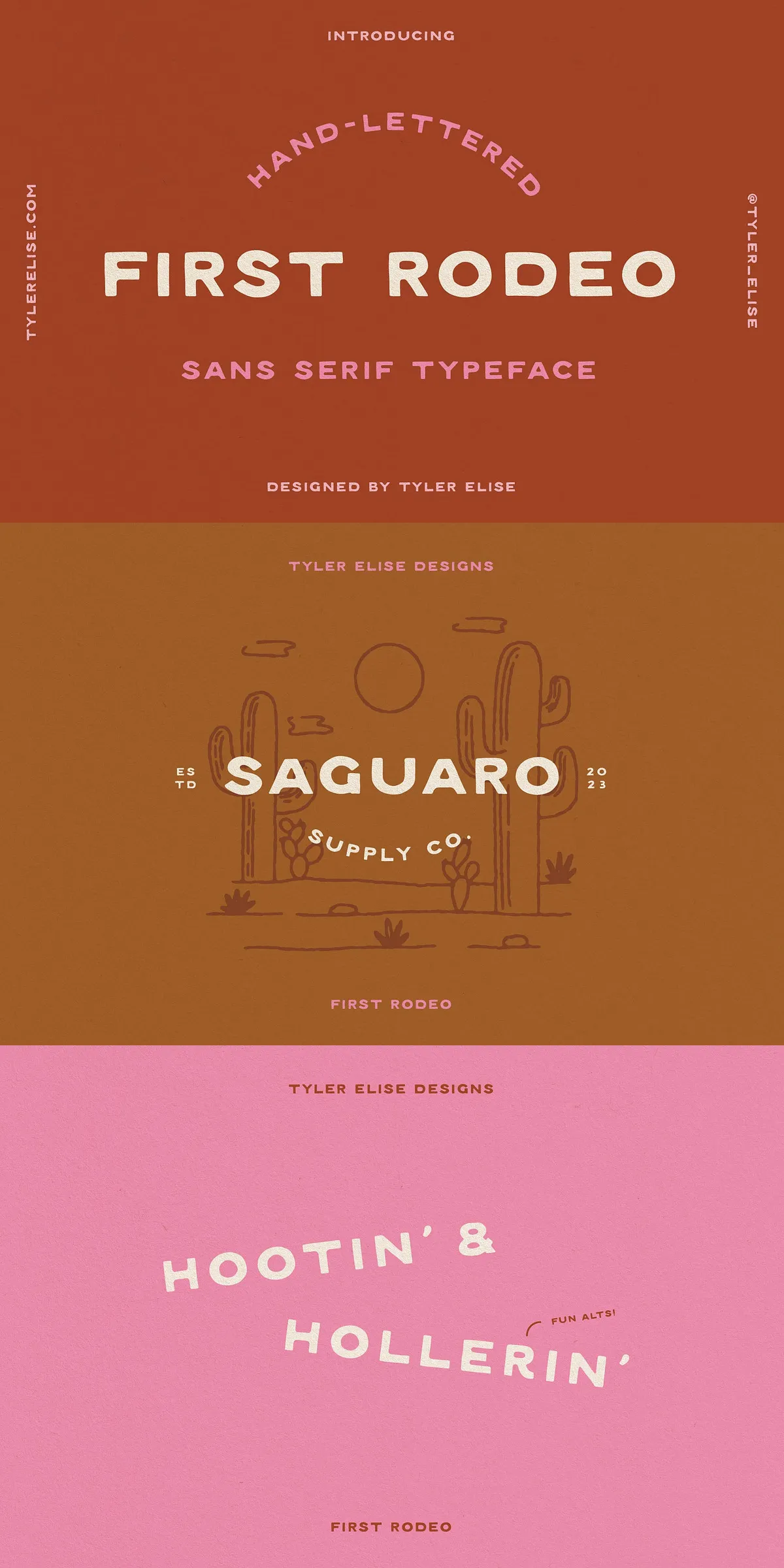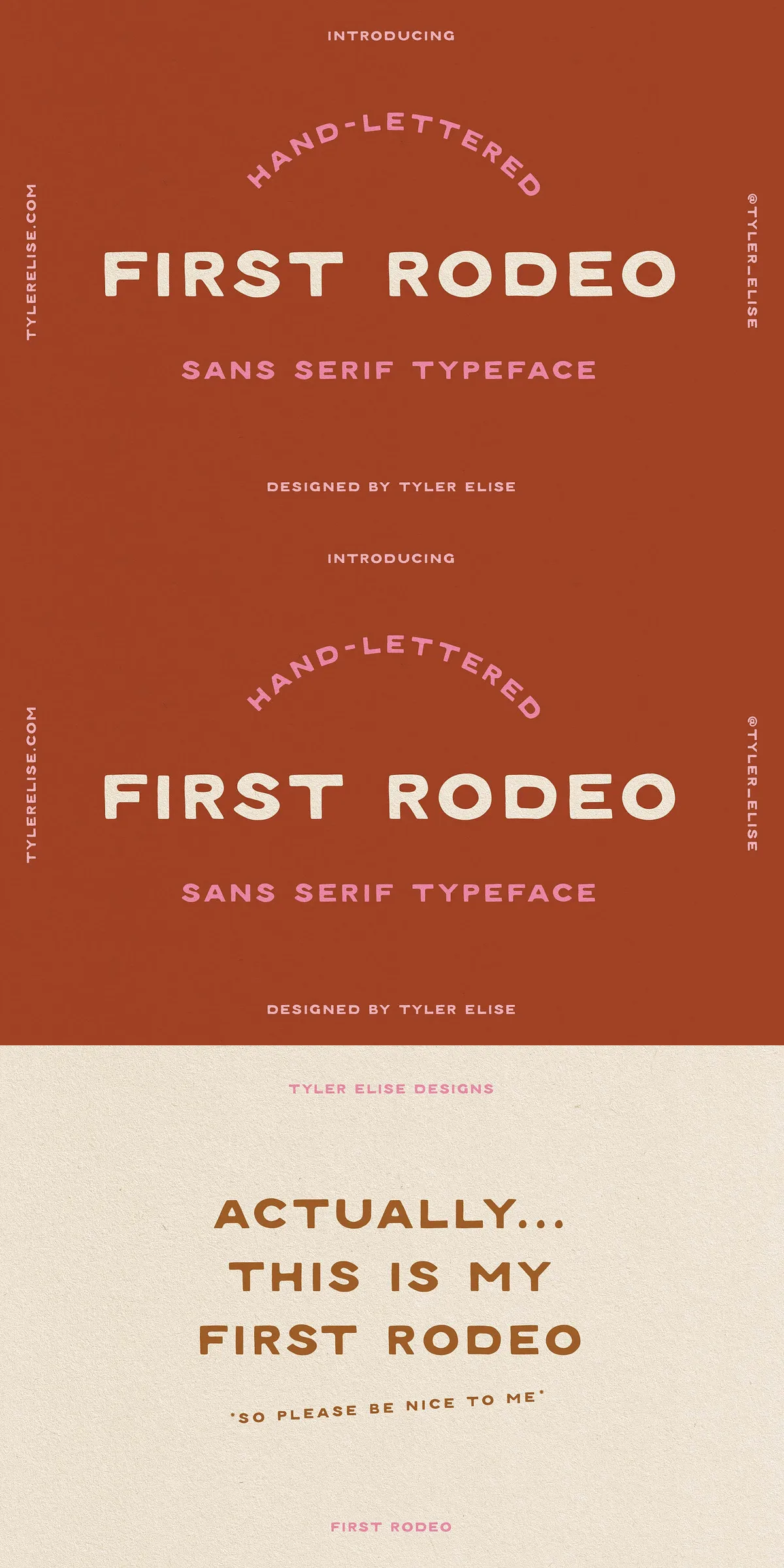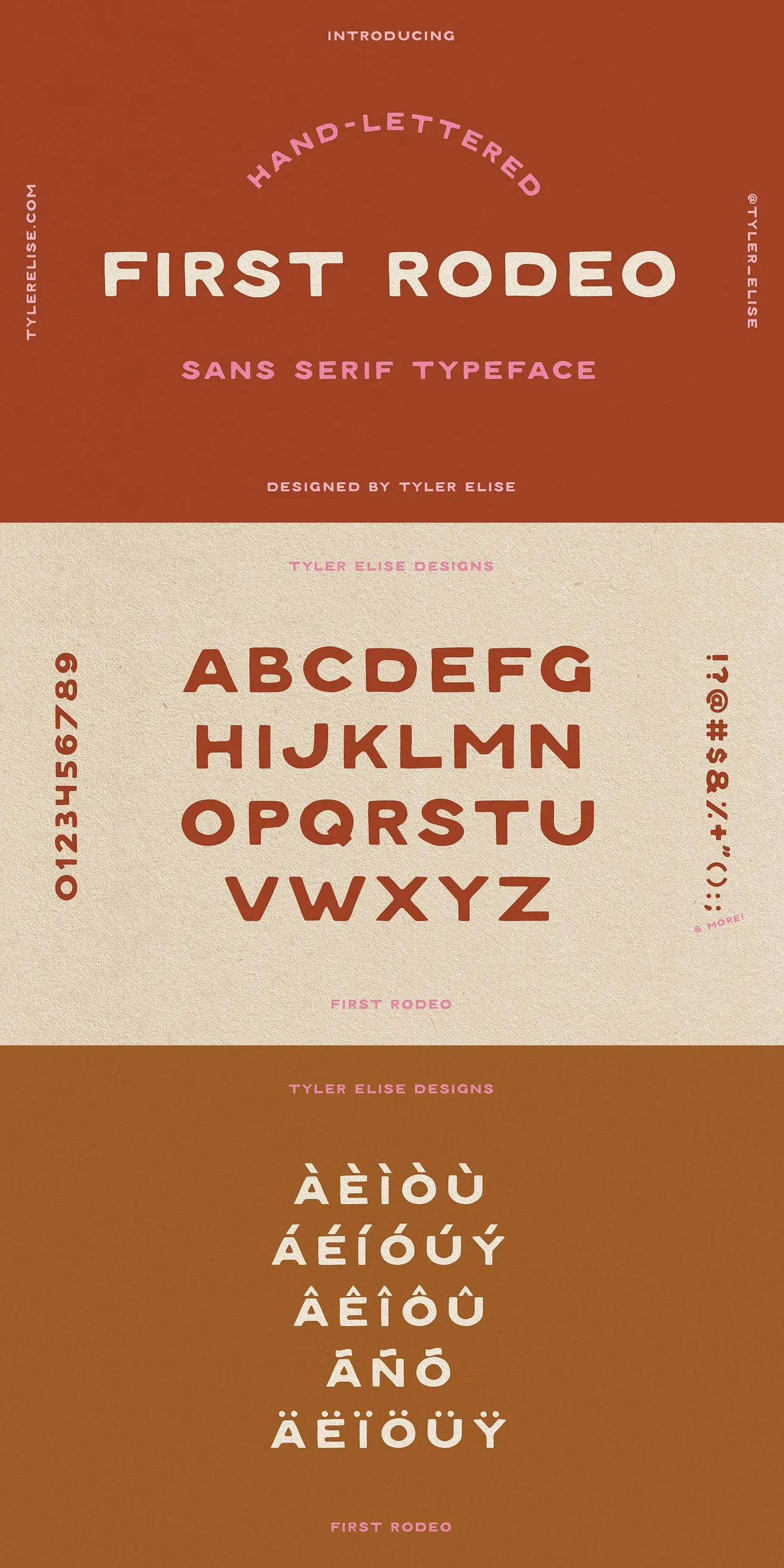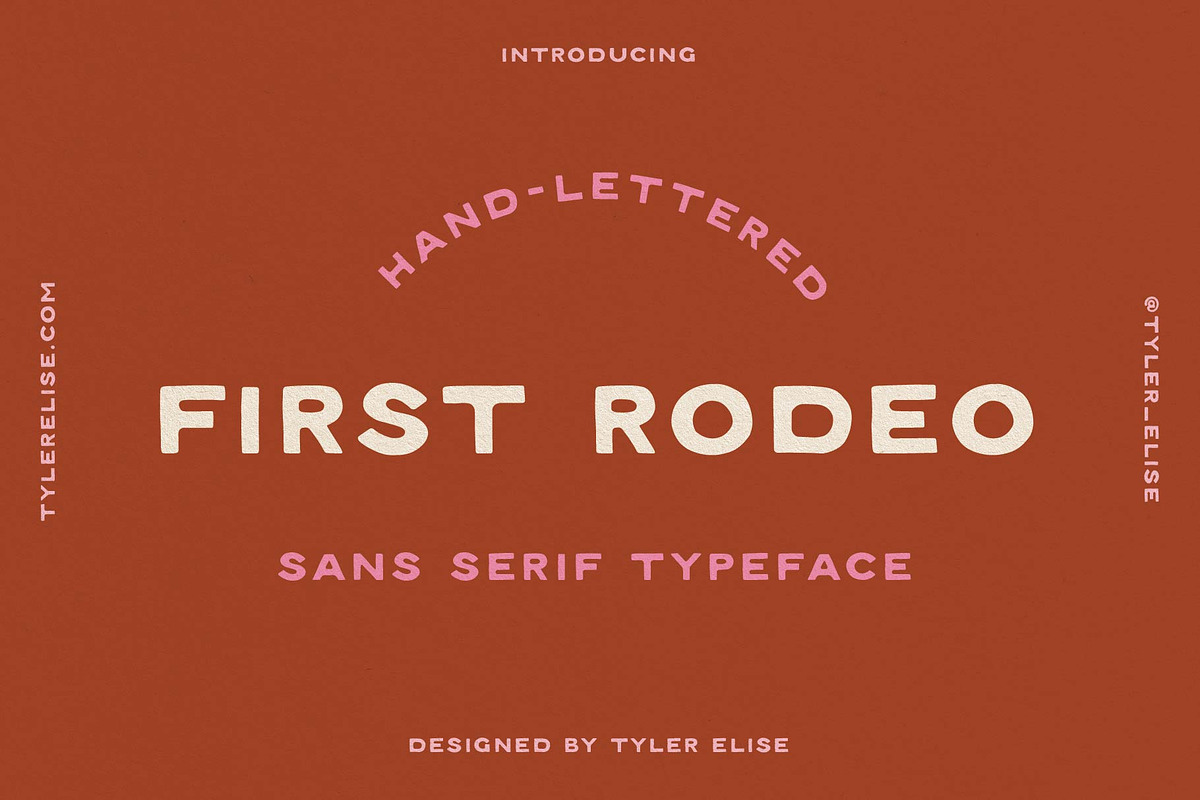
FIRST RODEO transforms your design projects with its distinctive hand-lettered sans serif style that combines boldness with an engaging texture and a playful touch of wonkiness. This font’s unique personality energizes logos, branding, and other creative works, giving them a memorable edge that stands out in competitive markets. Designed for designers seeking originality and expressive typography, FIRST RODEO delivers a bold statement wrapped in handcrafted charm that brings creativity to life with every letter.
Inject Dynamic Texture and Playful Personality Into Your Designs
At the core of FIRST RODEO lies a captivating texture that breathes life into the font’s carefully crafted letters. The hand-lettered technique infuses each character with warmth and authenticity, while the subtle wonkiness adds dynamic movement and organic appeal. This deliberate design creates a lively rhythm across your text that effectively captures attention and resonates emotionally with viewers. Whether used in digital or print media, FIRST RODEO’s active texture promotes engagement and helps your message come alive.
Multiple Applications Across a Variety of Design Projects
FIRST RODEO’s versatility shines across a wide range of creative applications, from bold logo design to branding identities that need a human touch. The font’s clear sans serif foundation maintains excellent readability at all sizes, supporting impactful headlines, product packaging, promotional materials, apparel branding, and signage. Its hand-crafted appearance lends brands an authentic voice, making messages feel genuine, approachable, and thoughtfully designed. By adopting FIRST RODEO, you ensure your projects communicate with character and confidence.
Bold Typography That Commands Visual Attention and Brand Recognition
The bold strokes and textured nuances of FIRST RODEO not only enhance visual appeal but actively engage audiences through confident letterforms that balance artistry with functionality. This font prioritizes legibility without sacrificing the organic artistry that sets it apart. It empowers brands to make strong visual impressions, driving recognition and memorability. Marketers and creative professionals will appreciate the way FIRST RODEO merges practical typography needs with a creatively rich presentation.
Designed for Creative Freedom and Practical Use
FIRST RODEO empowers creative professionals to explore vibrant typographic expression while ensuring practical usability in real-world projects. It seamlessly adapts to both digital interfaces and printed collateral while fostering creative experimentation with texture and form. The font’s wonky imperfections reinforce its handcrafted appeal, inviting designers to break free from uniformity and inject personality into their layouts. This balance between artistic freedom and structured clarity makes FIRST RODEO an invaluable asset in crafting standout brand identities.
Summary of FIRST RODEO Font Features and Benefits
- Distinctive hand-lettered sans serif font loaded with unique textural character
- Playful wonkiness adds organic movement and visual interest to text
- Excellent readability supporting active, bold branding and logo design
- Versatile usage from logos and packaging to promotional materials and apparel
- Combines handcrafted aesthetics with functional typography principles
- Perfect for brands aiming for authenticity, originality, and strong visual impact
By choosing FIRST RODEO, you embrace a font that energizes your projects with fresh originality while delivering the professional clarity and boldness your designs demand. Its handcrafted texture and wonky flair actively communicate creativity and warmth, helping your brand build lasting connections. Whether creating a new logo, marketing campaign, or unique packaging design, FIRST RODEO equips you with the expressive style and typographic power needed to rise above the noise.